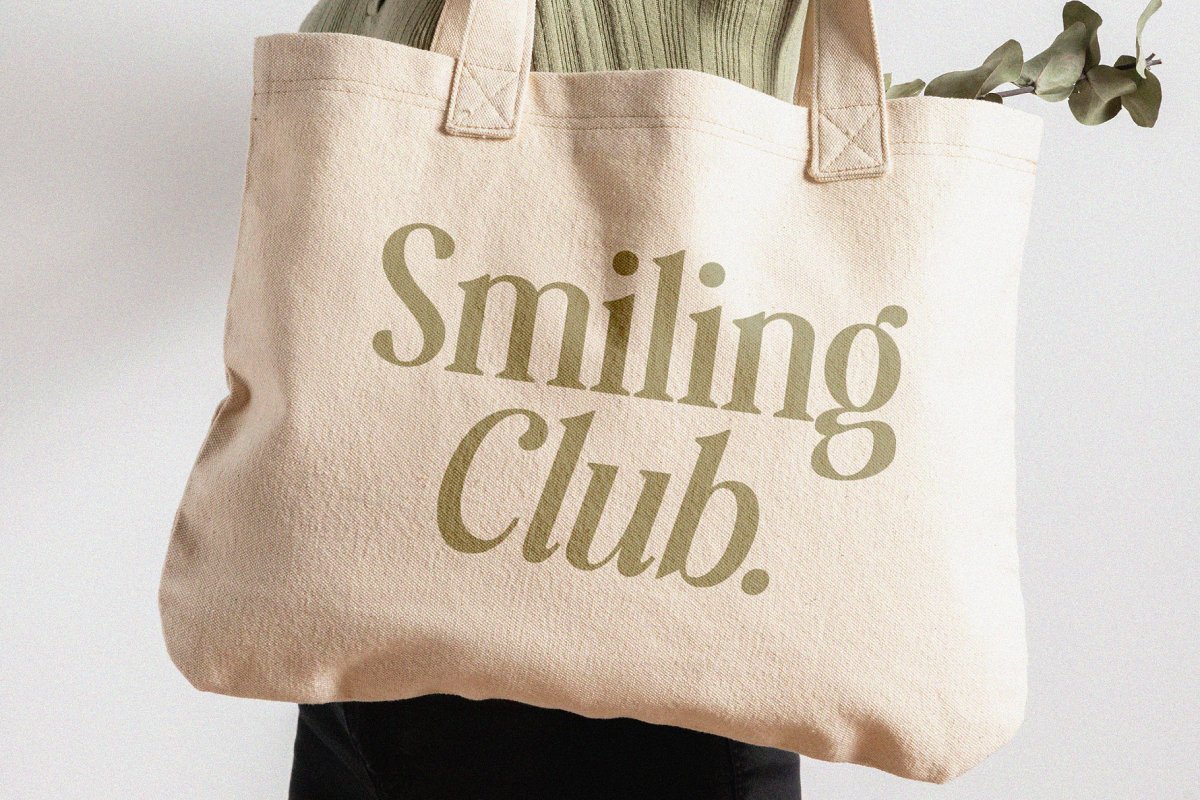
About the Native Stories Classic Serif Font
This font is included in the bundle: https://creativemarket, com/Prioritype/7551413-The-Modern-Unique-Font-Bundle-02A serif font with a stylish, classic feel is ready to work with your design projects, There are two styles, namely Regular and Italic, Perfect for applying to poster designs, branding, magazines, merchandise, logos and more, Features: Uppercase, Lowercase, Numeral, Punctuation & Multilingual